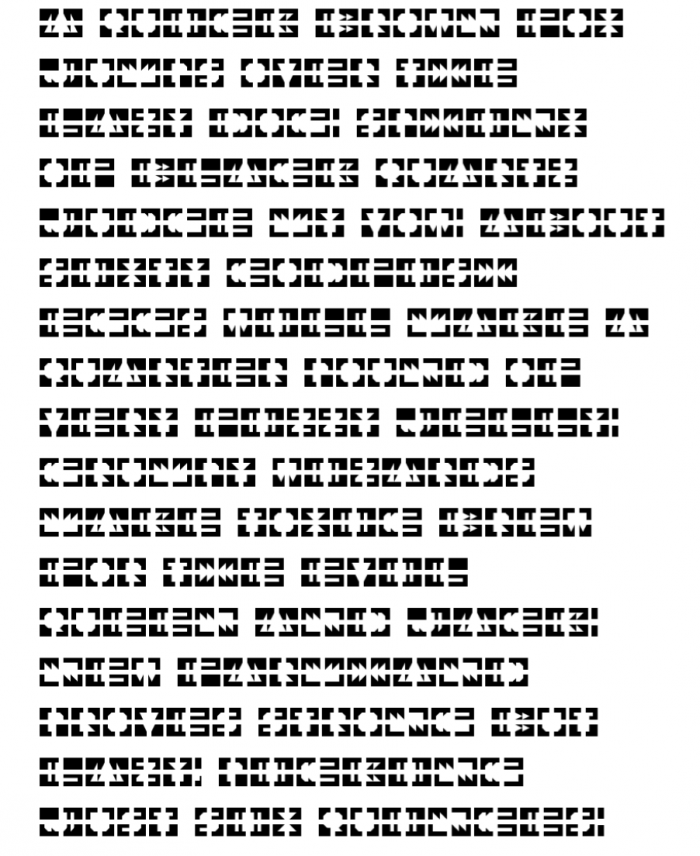
IJ ligatures on every variation??
no, it's how to crucify a savior in countless ways!!
Congratulations! FontStruct Staff have deemed your FontStruction worthy of special mention. “jaubolAC24” is now a Top Pick.